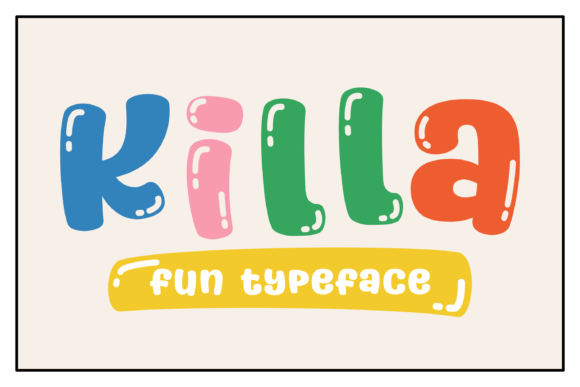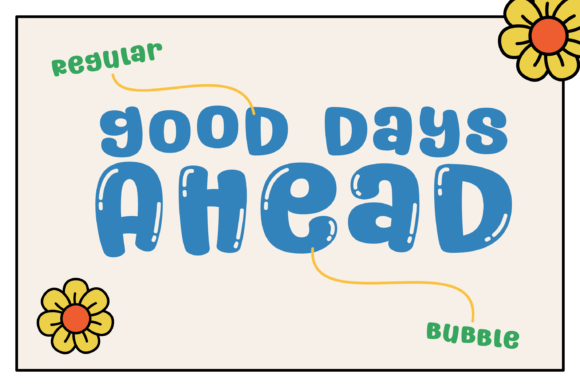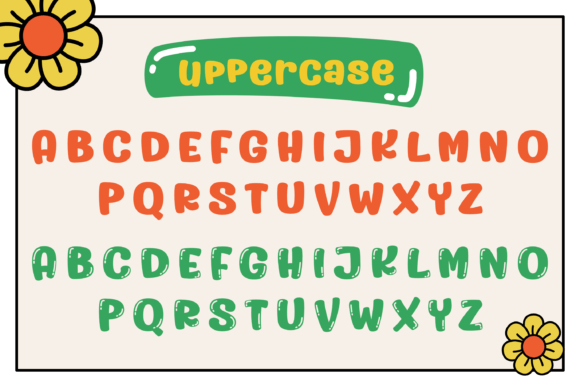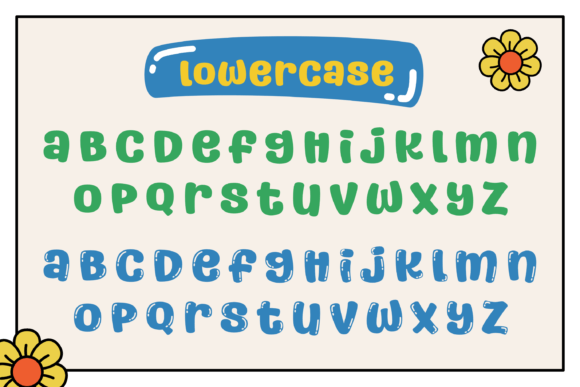
Killa Font: A Playful Handwritten Font for Cute Branding & DIY Projects
About the Killa Font
Crafted with precision, the Killa Font is ready to bring your ideas to life. Killa is a quirky, handwritten, and fun typeface with children’s vibes. Consists of 2 styles, regular and bubble. Inspired by children’s handwriting with a unique combination of uppercase and lowercase. This font is perfect for a design that requires a playful and fun accent. Killa is suitable for book covers, posters, packaging, merchandise, logotypes, font logos, stickers, and much more. Use this display font to add that special retro touch to any design idea you can think of!
Killa Font Usage Examples
Killa Font Example